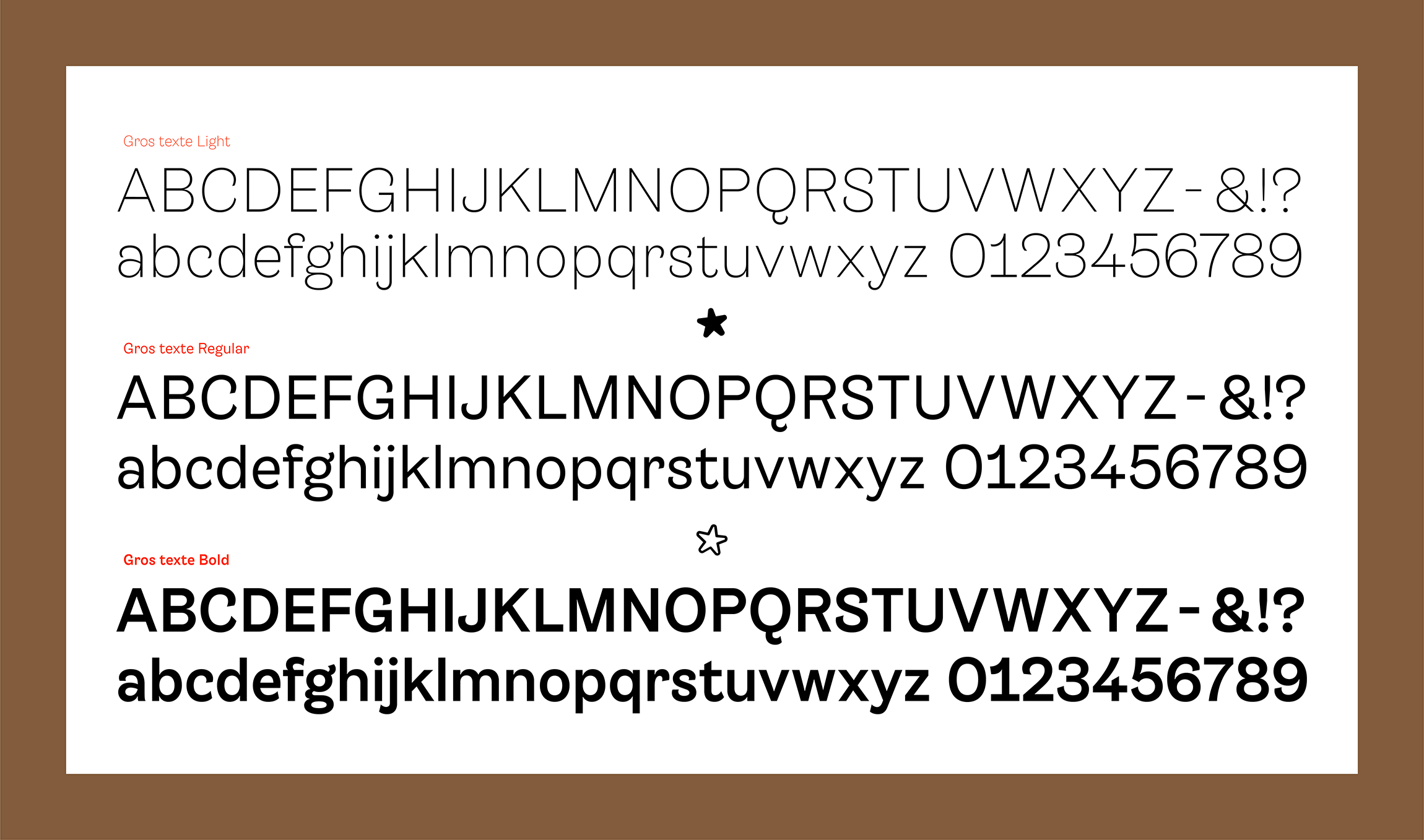
Name: Grostexte
Designers: Arthur Alazard, Pierre Ferrandez, Vincent Ferrandez, Hugues Gentile, and Eliote Shahmiri
Foundry: Policestudio
Release Date: October 2017
Back story: Grostexte began as a personal project celebrating the speech balloons, casual typography, and onomatopoetic bursts found in comic books. Pierre Ferrandez, whose father Jacques Ferrandez is a well-known French illustrator, originally designed the first version of the typeface sometime between 2014 and 2015. The work of midcentury cartoonists such as France’s Albert Uderzo (Asterix), and the Belgians André Franquin (Gaston) and Hergé (Tintin), along with his father’s cartoons, were important references during Ferrandez’s process. When the Policestudio team decided to expand Grostexte recently, it added light, regular, and italic weights, plus a set of crazy ornaments, to the existing bold versions to round out a complete family.
Why’s it called Grostexte? The name refers to the 19th century Antique type families that came to be called Grotesque, and exaggerates the meaning of the word: to be ridiculous or even clumsy. “To make the name ours, we turned it into Grostexte which means literally ‘big text,’ as the original typeface was only drawn in the Bold weight,” says Shahmiri. “We loved the big ornaments like Bang! and Boom! which emphasize their origins as callouts within comic speech balloons.”
What are its distinguishing characteristics? Both the character shapes and the exuberant set of onomatopoetic ornaments scream “comic book” while somehow retaining enough dignity to be taken seriously. The terminals of the capital ‘C’, ‘G’, ‘J’, and ’S,’ as well as those on the lower case ‘c,’ ‘r,’ ‘s,’ and ‘t’ curl inward at exaggerated angles, and the lower case ‘a’ resembles someone pulling an all-nighter, slumped in exhaustion over a laptop balanced on his or her knees. The top of the lower case ‘f’ is an odd cross between a bishop’s crook and an ankh symbol, and the tail of the ‘Q’ pokes out from the center of the character’s bottom curve like that of a fat, contented cat.
It’s the ornaments, however, that really set Grostexte apart. Each weight has 439 glyphs and 56 ornaments including exclamation points incorporating stars, energetic tornado-like swirls, impact marks, lightning bolts, and little poof clouds in case you need to typeset some farts every now and again.
What should I use it for? “Use the bold weight for things that need to feel really human and not too serious,” Shahmiri says. “The light and regular are a bit less expressive even if they keep the characteristics of the bold. The family can be used in so many contexts.” Lighthearted signage, barbecue joint menus, cartoon festival posters…this one is at home in any project where a designer has the latitude to cut loose a bit.
What other typefaces do you like to pair it with? “Try some more discreet fonts,” says Shahmiri. “We used it once with our Panthéon I, which in theory doesn’t match at all but it was really nice. We’re working on an identity for a bilingual school at the moment—maybe [for that] we’ll pair it with a quite serious font. Context is everything!”